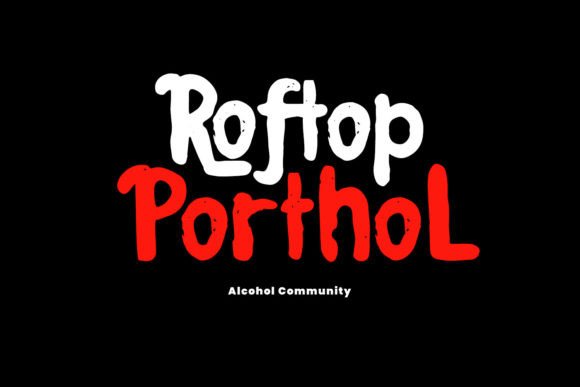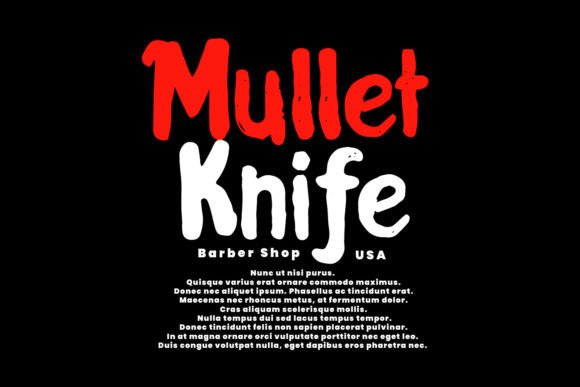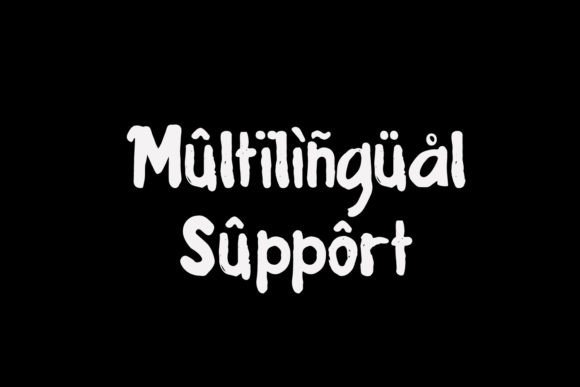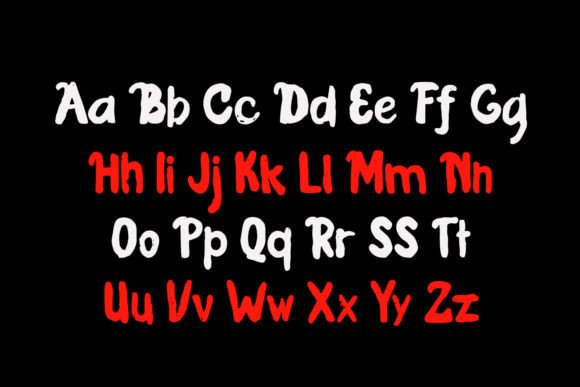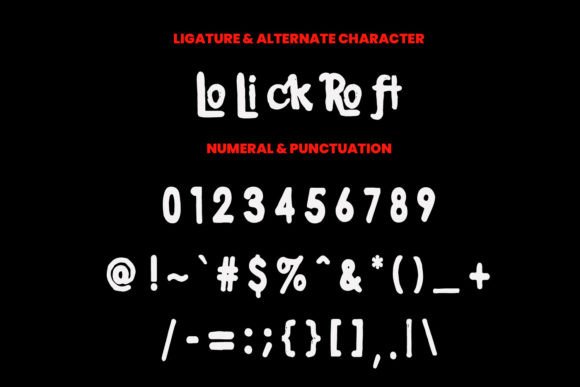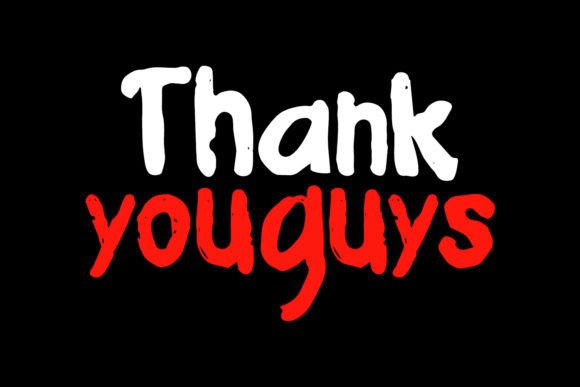
Coslick Font: Adding a Personal Touch to Your Designs
Are you tired of using the same old fonts in your designs? Do you want to add a personal touch that sets your work apart from the rest? Look no further than Coslick Font, a charming, handmade display font that’s perfect for adding a friendly, casual style to your projects.
What is Coslick Font?
Coslick Font is a unique, handcrafted display font that’s designed to bring a warm, inviting feel to your designs. Each letter is carefully crafted to look unique and inviting, making it perfect for adding a personal touch to your work. Whether you’re designing posters, invitations, or any other type of project, Coslick Font is the perfect choice.
Key Features of Coslick Font
- Handmade with love: Coslick Font is carefully crafted by hand, giving it a unique and personal touch that’s hard to find in digital fonts.
- Charming and inviting: The font has a friendly, casual style that’s perfect for adding a warm feel to your designs.
- Unique lettering: Each letter is carefully crafted to look unique and inviting, making it perfect for adding a personal touch to your work.
- Perfect for display text: Coslick Font is designed specifically for display text, making it perfect for posters, invitations, and other types of projects that need to make a statement.
Uses for Coslick Font
Coslick Font is perfect for a wide range of design projects, including:
- Posters: Add a personal touch to your posters with Coslick Font, perfect for advertising events, promoting products, or showcasing your artwork.
- Invitations: Make your invitations stand out with Coslick Font, perfect for weddings, birthday parties, and other special occasions.
- Branding: Use Coslick Font to add a personal touch to your branding, including logos, packaging, and marketing materials.
- Social media graphics: Add a personal touch to your social media graphics with Coslick Font, perfect for creating engaging and shareable content.
Why Choose Coslick Font?
There are many fonts to choose from, but Coslick Font stands out from the rest. Here are just a few reasons why:
- Unique and eye-catching: Coslick Font is a one-of-a-kind font that’s sure to grab attention and make your designs stand out.
- Easy to read: Despite its unique and handcrafted style, Coslick Font is still easy to read, making it perfect for display text.
- Versatile: Coslick Font can be used for a wide range of design projects, from posters and invitations to branding and social media graphics.
- High-quality: Coslick Font is a high-quality font that’s designed to look great in any design.
Tips for Using Coslick Font
Here are a few tips for getting the most out of Coslick Font:
- Use it sparingly: Coslick Font is a display font, so it’s best used sparingly to add emphasis and interest to your designs.
- Pair it with a simple font: Pair Coslick Font with a simple font to create contrast and make your designs more visually appealing.
- Experiment with colors: Coslick Font looks great in a wide range of colors, so don’t be afraid to experiment and find the perfect color for your design.
Coslick Font is a charming, handmade display font that’s perfect for adding a personal touch to your designs. With its unique and inviting style, it’s perfect for posters, invitations, and any other type of project that needs a warm, handcrafted feel. Whether you’re a designer, crafter, or DIY enthusiast, Coslick Font is a great choice for adding a personal touch to your work.